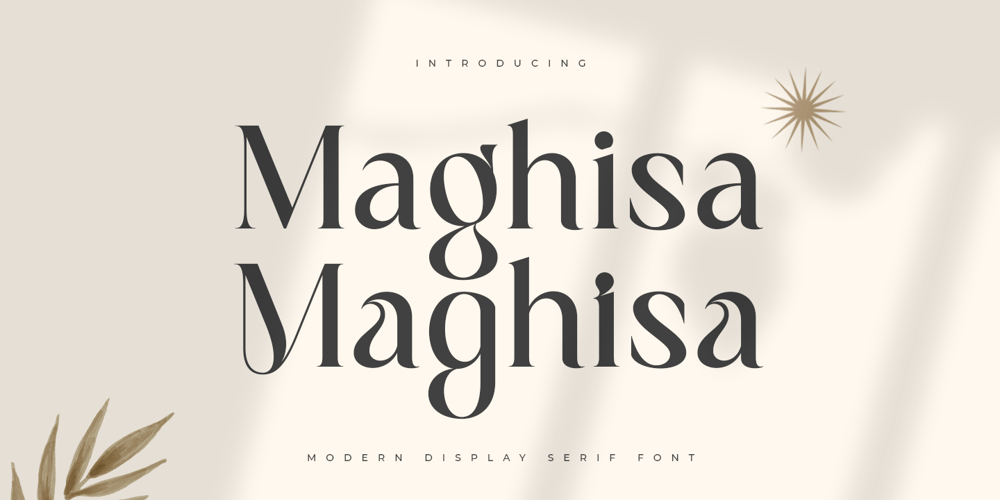
Magisha Font Family was designed by Zamroni Hamzah and published by Sensatype Studio. Magisha contains 1 styles and family package options. Maghisa is Modern Display Unique Serif Font is a well-balanced contemporary font with a fancy, unique, and versatile Luxury serif, font that you can combine to get any variations and unique shapes easily just in seconds with choose alternates of them. It is a serif display font with moderate contrast that perfect for branding projects, logo, wedding designs, social media posts, advertisements, product packaging, product designs, label, photography, watermark, invitation, stationery, and any projects, it makes with a high level of legibility.What’s Included: Maghisa font Character set A-Z Numerals & Punctuation Accented Characters (West Europe) Works on PC & Mac Recommended using Adobe Illustrator or Adobe Photoshop. Wish you enjoy our font. 🙂